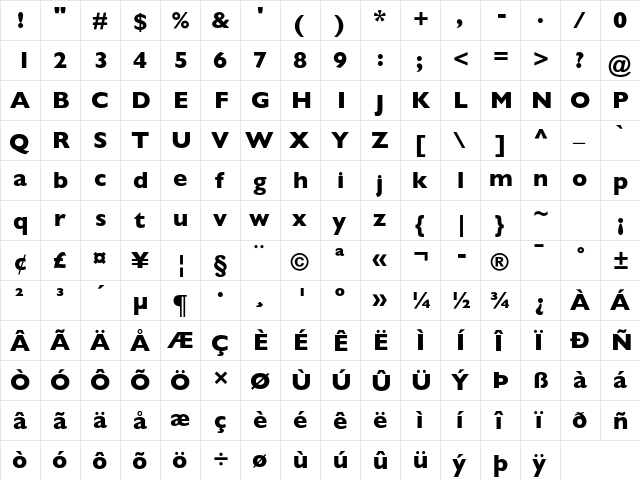
Gill Sans MT Pro Heavy Font Preview
Gill Sans MT Pro Heavy
Gill Sans MT Pro Heavy Font Details
| Style | Heavy |
Design Context for Gill Sans MT Pro Typeface
Gill Sans MT Pro is a composed and adaptable typeface that performs quietly and consistently across a wide range of design contexts.